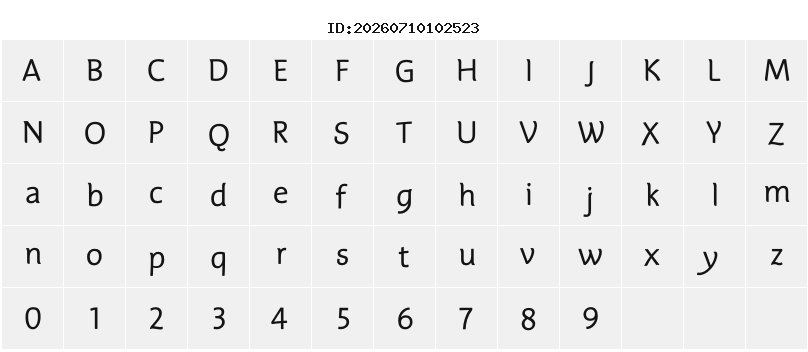
• Font Name: Edifice Classic
• Designer: Dimitri Castrique
About Edifice Classic.otf
Edifice Classic.otf is a modern, elegant sans-serif font designed for ultimate readability and visual harmony. Perfect for branding, headlines, web design, and print materials.